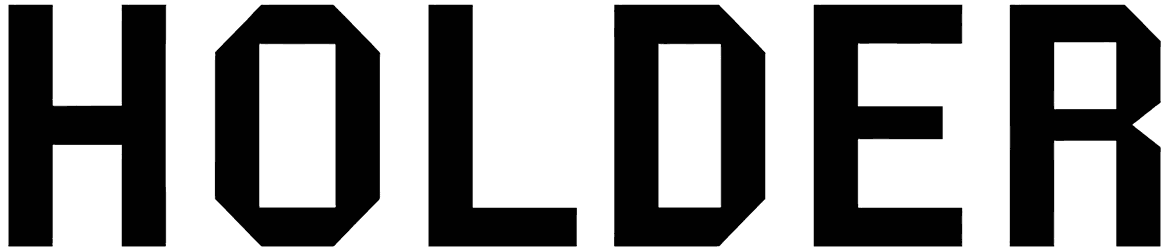
Holder Font
Welcome to our fancy old-school font, the Holder. Its geometric shape with symmetrical arrangement gives off a modern, digital touch to your work and makes it outstanding. This block font includes three different weights but doesn’t support numerals. It’s a great choice for logotypes, posters, branding, product packaging, and hi-tech designs.